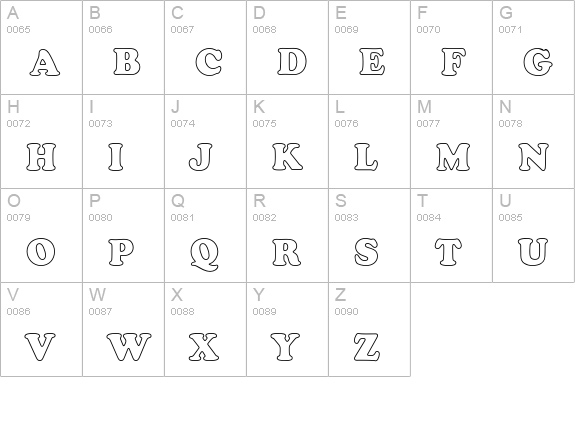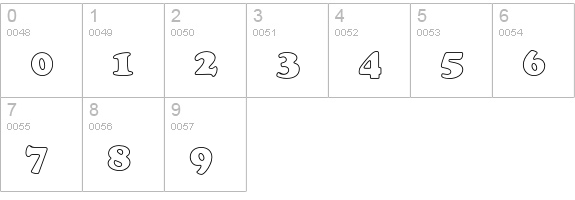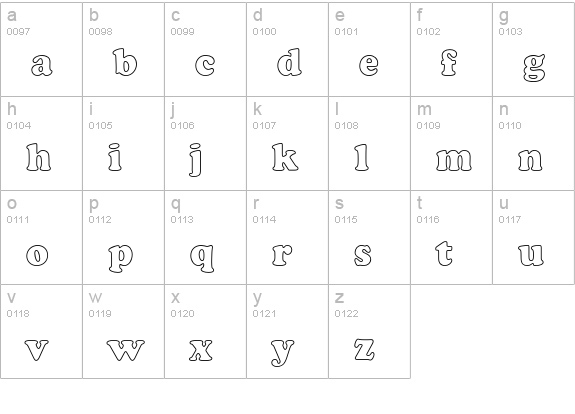
CooperBlackEF-BoldOutline Font Details
CooperBlackEF-BoldOutline font is a bold and eye-catching typeface that exudes confidence and style. Its thick outline design gives a modern twist to the classic Cooper Black font, making it perfect for headlines, titles, and other display purposes. The bold strokes and clean lines of this font make it stand out on any design project, adding a touch of sophistication and elegance. Best of all, CooperBlackEF-BoldOutline font is available for free download at FontsMarket.com. This means you can easily access this stunning font and use it in your projects without any cost. Whether you're a graphic designer, a website developer, or a creative enthusiast, this font is a must-have in your collection. So go ahead and download CooperBlackEF-BoldOutline font today to elevate your designs and make a bold statement!